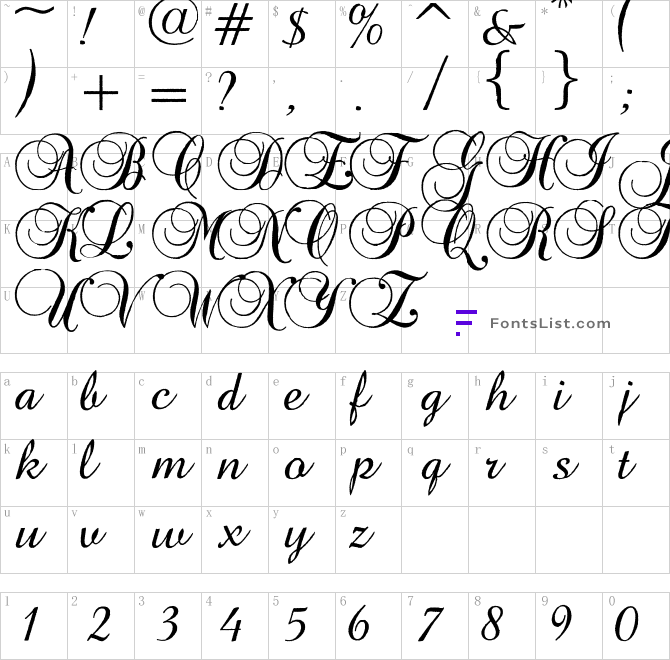
- Font Name:Baroque Antique Script
Baroque-Antique-Script.ttf is a very beautiful artistic font, Baroque-Antique-Script.ttf is widely used in the design and printing of various books and pictures,Baroque-Antique-Script.ttf has a strong visual impact,Baroque-Antique-Script.ttf is a commonly used font in newspapers, magazines and books, and is used in posters, e-commerce Poster design, store design, logo design, font design and other fields.Baroque-Antique-Script.